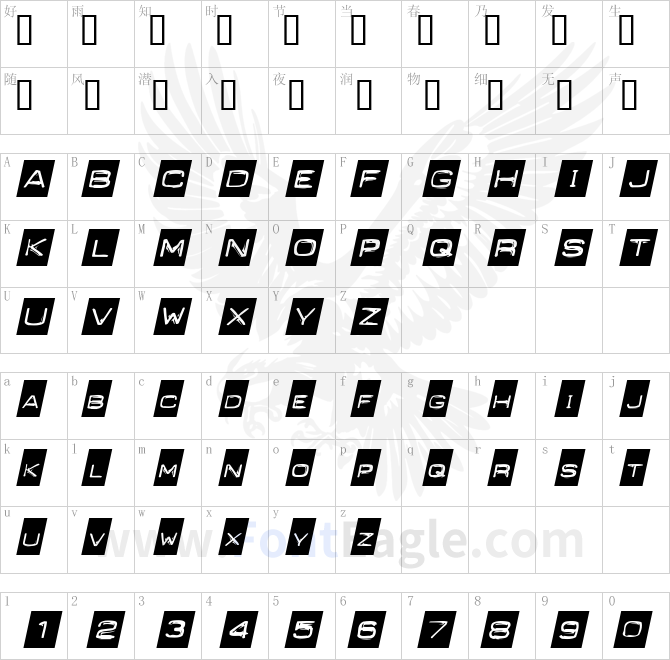
- Font name:PunchLabelExtended
- Font Subfamily ID:SWFTE:PunchLabelExtended Italic
- Font Full Name:PunchLabelExtended Italic
- Postscript:PunchLabelExtendedItalicSWFTE